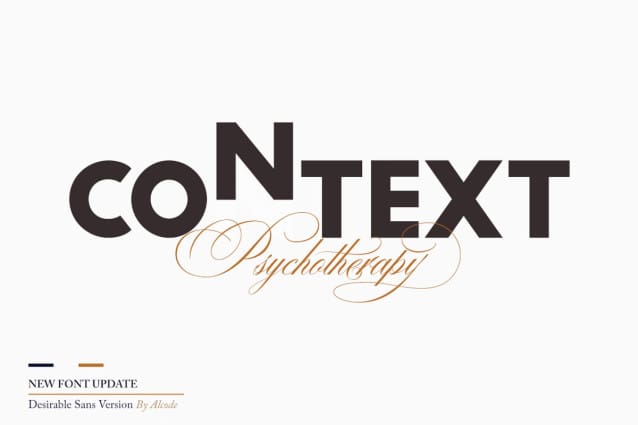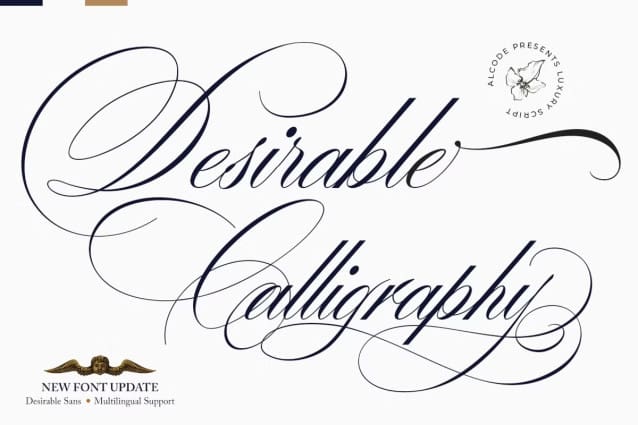
Desirable Calligraphy Font
Desirable Calligraphy Font, is a calligraphy font with a classic style and a touch of elegance, inspired by Italian women’s handwriting and ancient manuscripts. Carefully designed to work together harmoniously making it perfect for wedding media, book covers, greeting cards, logos, branding, business cards and certificates, even for any job Any design requires classic, formal or luxurious.